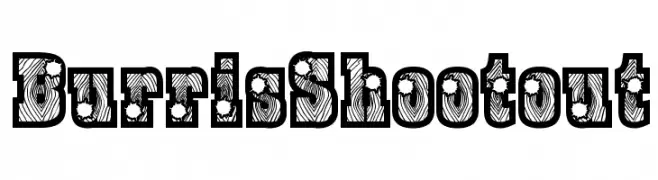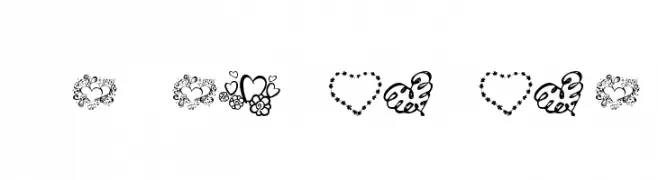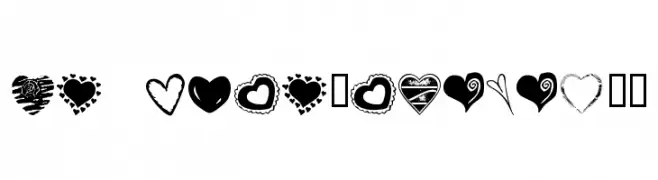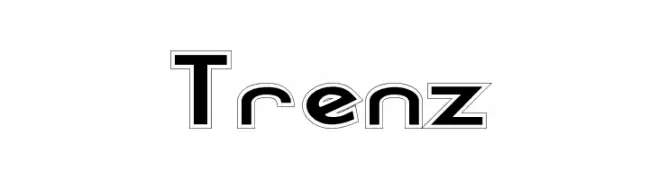
A playful, heart-themed decorative font with a hand-drawn style.
A decorative font with heart-themed designs and floral motifs, perfect for romantic projects.
( Fonts by Daniel Gauthier )
A bold, decorative font with intricate patterns and thick outlines.
( Fonts by or from www.graffitifonts.net )
A bold, playful font with a cartoonish, three-dimensional style.
( Fonts by ShyFonts )
A bold, outlined font with a dynamic and impactful style.
( Fonts by Paul Lloyd )
A bold, outlined blackletter font with a gothic, decorative style.